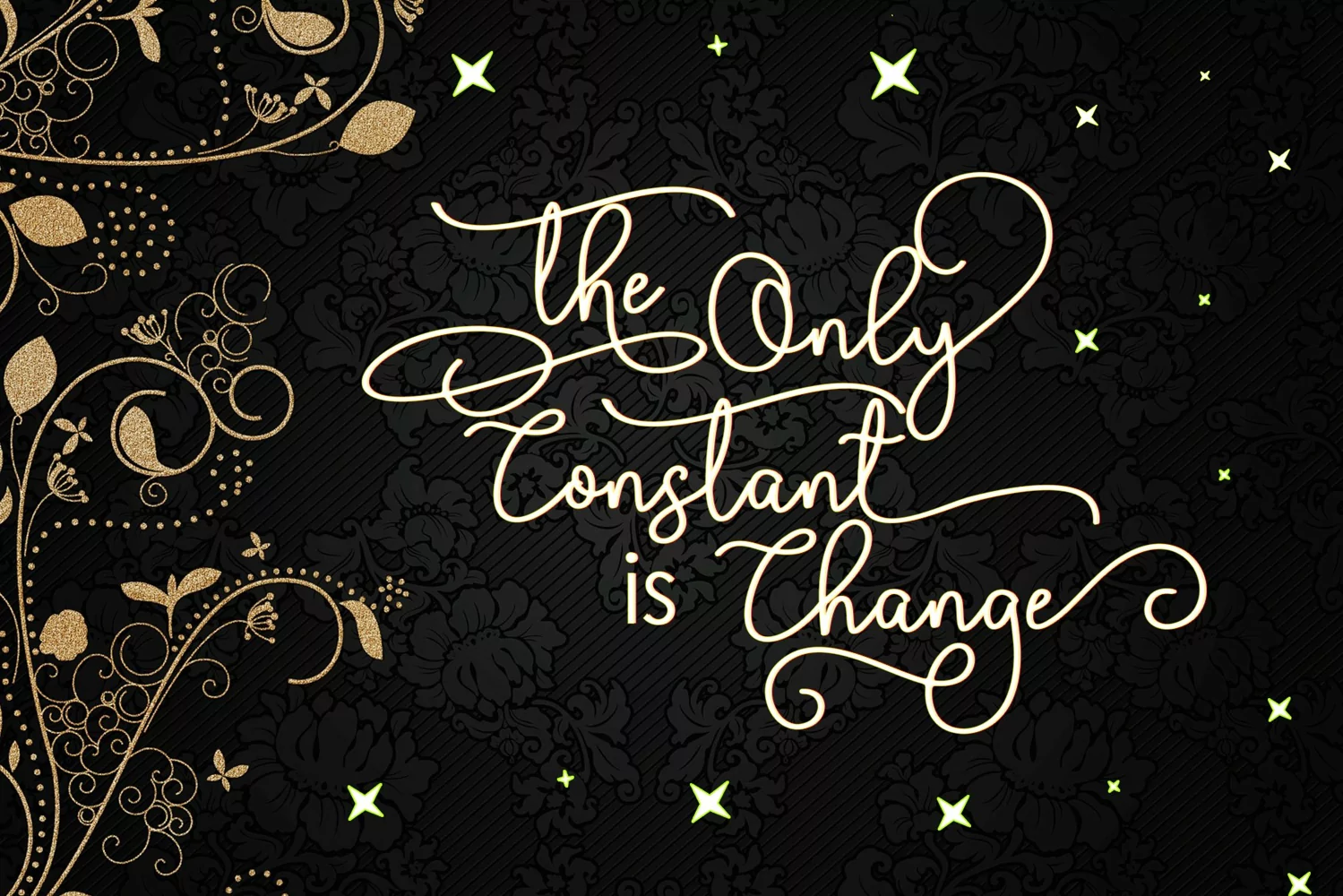
Sweet boho
Mono love - includes many alternative characters. Coded with Unicode PUA, which allows full access to all additional characters without having special design software. Mac users can use Font Book. Windows users can use the Character Map to view and copy one of the additional characters to paste into your favorite text editor. For people who have opentype-capable software: Alternatives can be accessed by turning on the "Alternative Style" and "Ligature" buttons on the Photoshop Character panel, or through any software with the glyph panel, e.g. Adobe Illustrator, Photoshop CC, Inkscape.